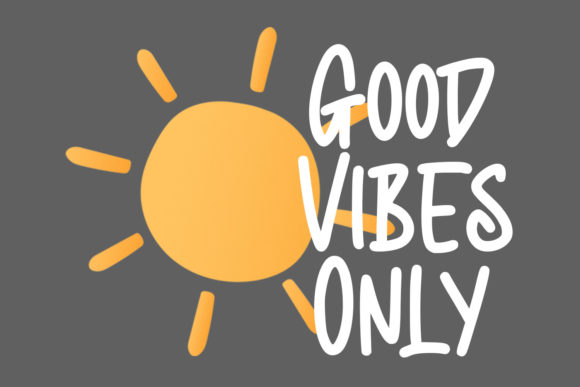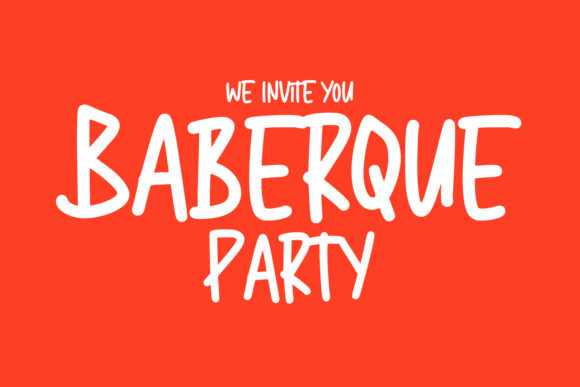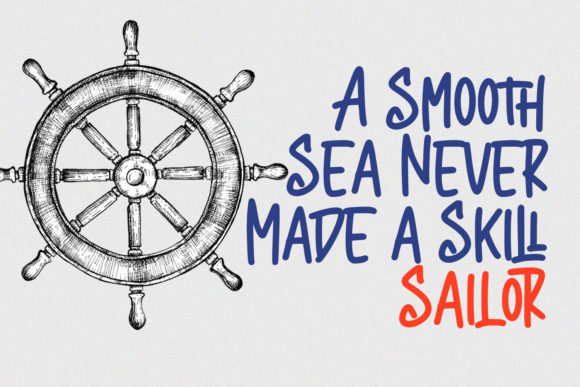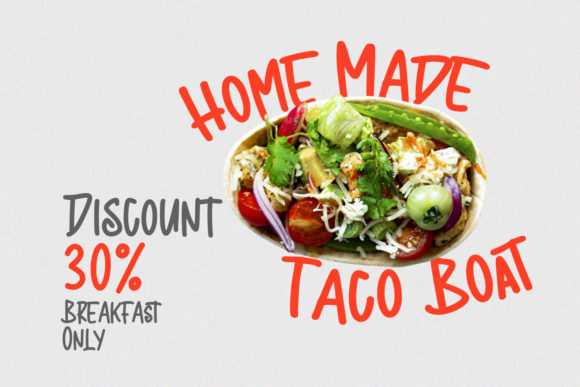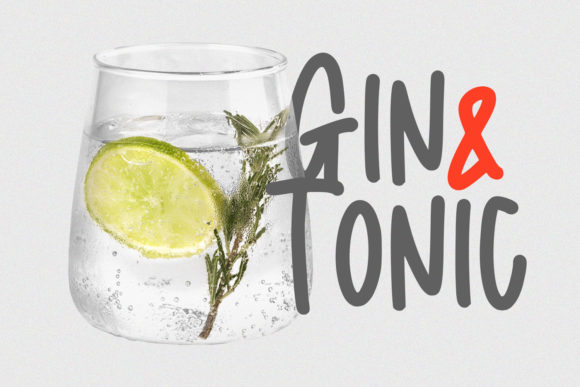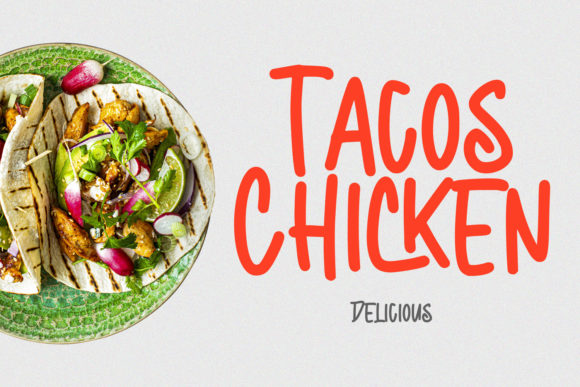
Atheroll Font: Elevate Your Designs with a Touch of Whimsy
Have you ever been stuck on a creative project, searching for that perfect font to bring your vision to life? I know I have – the blank page staring back at me, a blank slate begging for inspiration. That’s when I stumbled upon the Atheroll Font, a beautiful, handwritten font that instantly sparked my creativity.
With its bold strokes and playful characters, Atheroll Font is perfect for designers looking to add a touch of whimsy to their work. This versatile font features fun ligatures and alternates that will elevate your designs in a variety of contexts, from social media graphics to wedding invitations.
Atheroll Font Key Features
- Font Family: Atheroll is a sans-serif font family designed for digital use, with multiple weights and styles.
- Unique Characteristics: Atheroll features a unique blend of modern and minimalist design elements, with subtle rounded edges and carefully crafted letterforms for improved readability.
Atheroll Font Review
Initially, I was drawn to the Atheroll font due to its unique and modern aesthetic. ✨ The font’s bold and rounded lines give it a friendly and approachable feel that would be perfect for designs targeting a younger audience. ✨ The font also comes in a range of weights and styles, making it highly versatile and suitable for various design applications.
However, I did encounter some limitations while using the Atheroll font. ⚠️ For one, the font’s bold and rounded lines can sometimes make it difficult to read, especially in smaller font sizes. ⚠️ Additionally, the font’s ligatures and swashes can be a bit inconsistent, which may require some manual adjustments to achieve a uniform look. ⚠️
Pros and Cons
- Unique and modern aesthetic
- Highly versatile with multiple weights and styles
- Perfect for designs targeting a younger audience
- Can be difficult to read in smaller font sizes
- Ligatures and swashes can be inconsistent
- May require manual adjustments for a uniform look
Overall, I would give the Atheroll font a solid 3.5 out of 5 stars. While it has its limitations, the font’s unique aesthetic and versatility make it a great choice for designers looking to add some personality to their designs. However, it’s essential to carefully consider the font’s limitations and adjust the design accordingly to achieve the best results.
Atheroll Font is ideal for:
- Creating modern and sleek designs.
- Adding a touch of elegance to your branding materials.
- Designing posters, flyers, and other promotional materials.